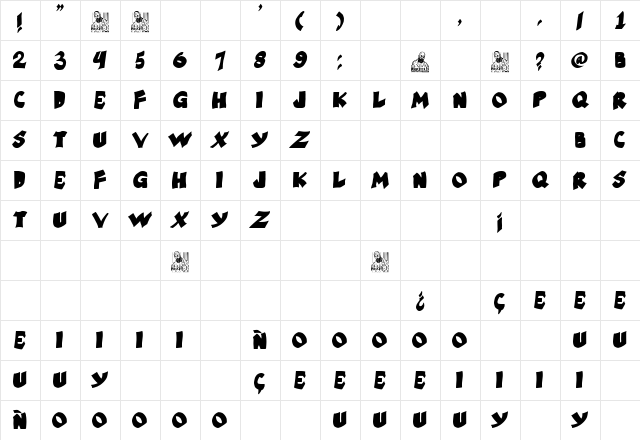
Complete Black Extreme Calipso Club Regular glyph index. Displaying only characters natively supported by Black Extreme Calipso Club Regular font.
Black Extreme Calipso Club is a composed and adaptable typeface that performs quietly and consistently across a wide range of design contexts.